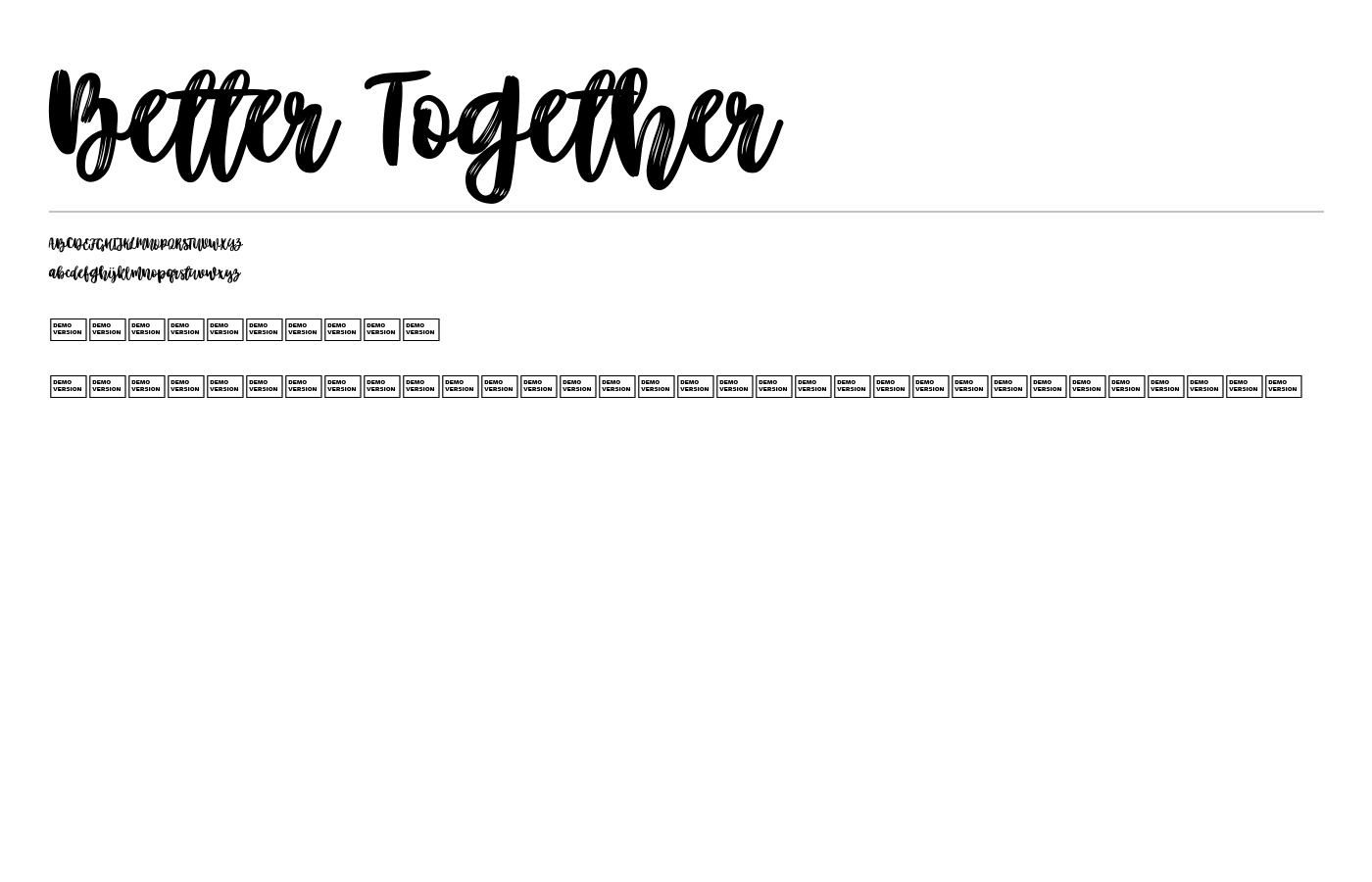
Better Together is a bold, lively script font with smooth, flowing strokes and a hand-lettered charm that feels warm and inviting. Its thick, rounded lines and connected letterforms make it perfect for creating friendly, stylish designs ideal for branding, invitations, and eye-catching headlines. This font brings a personal, approachable touch to projects seeking a modern yet playful vibe.
Better Together Font
About Better Together Font
| Font family | Better Together Font |
| Designer | Katsia Jazwinska |